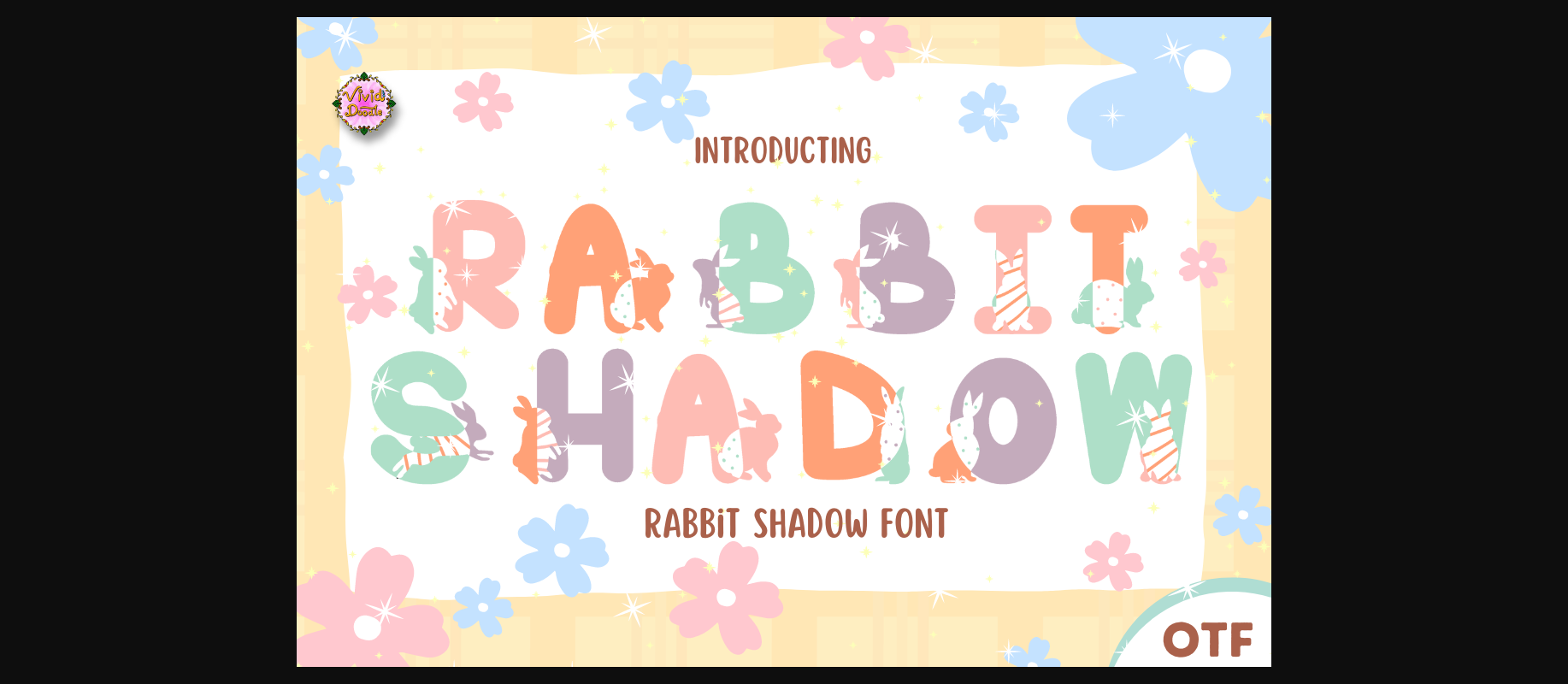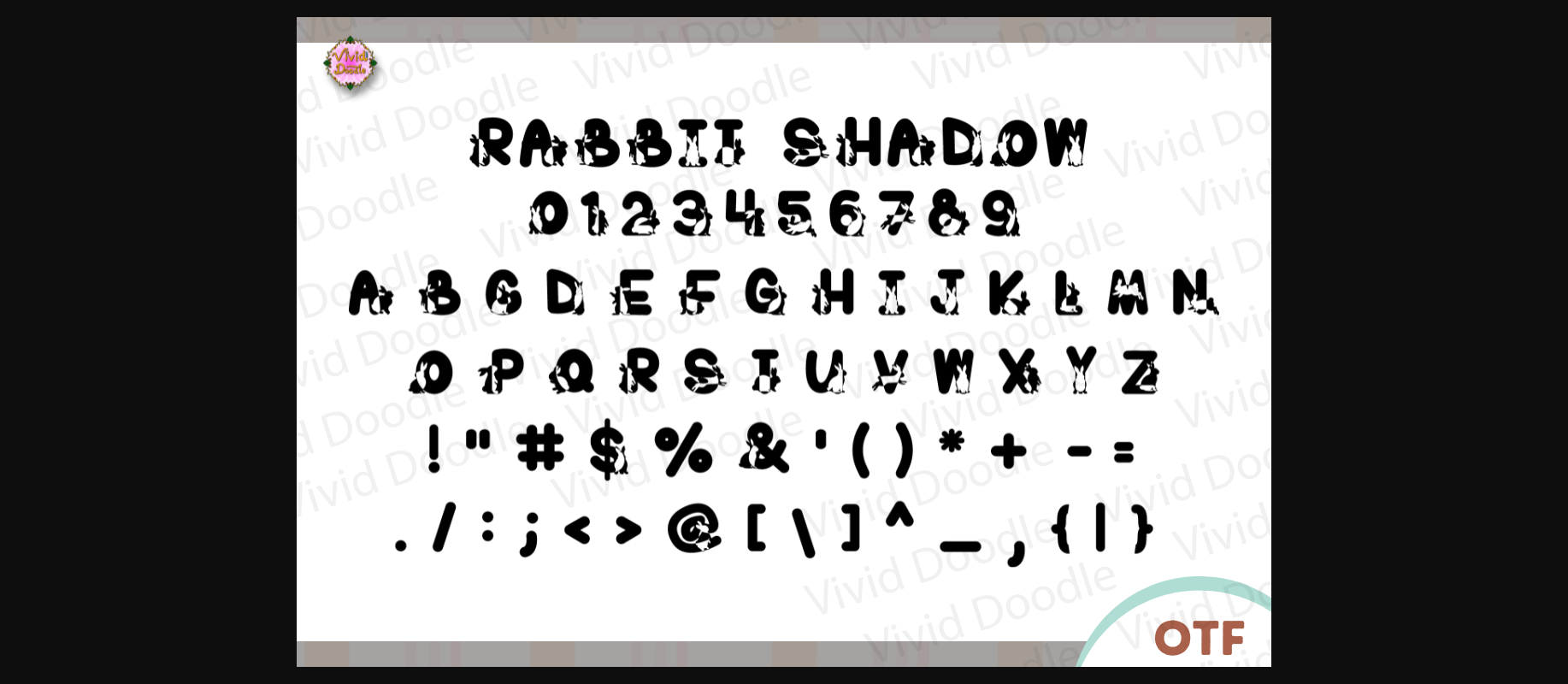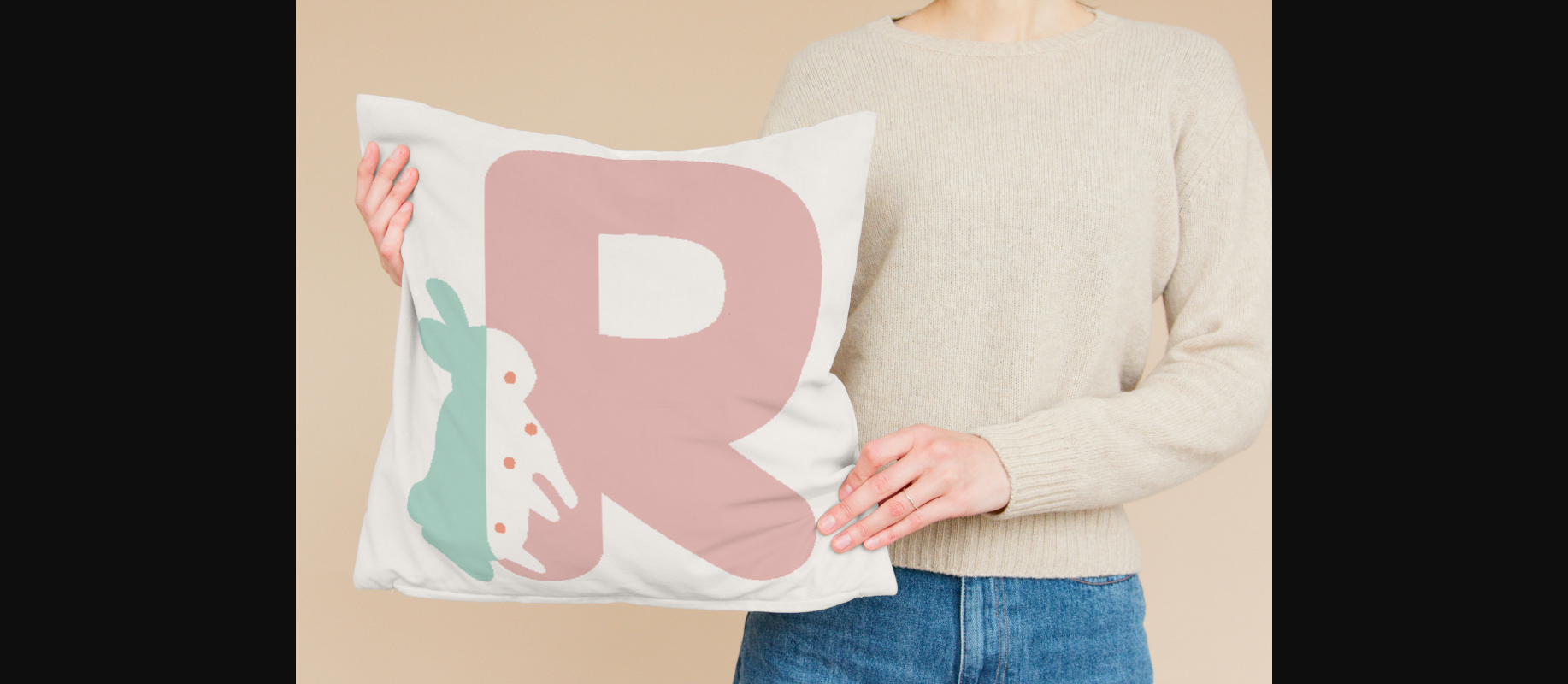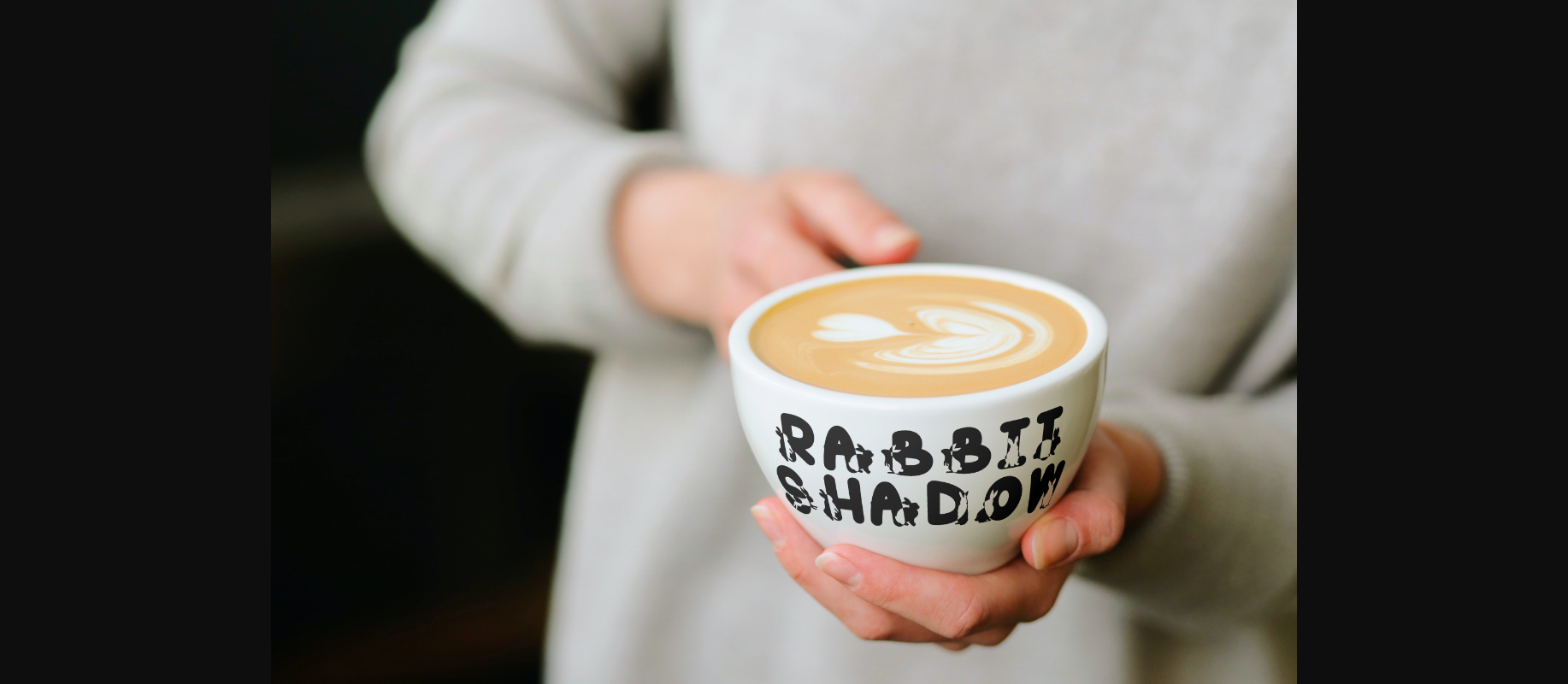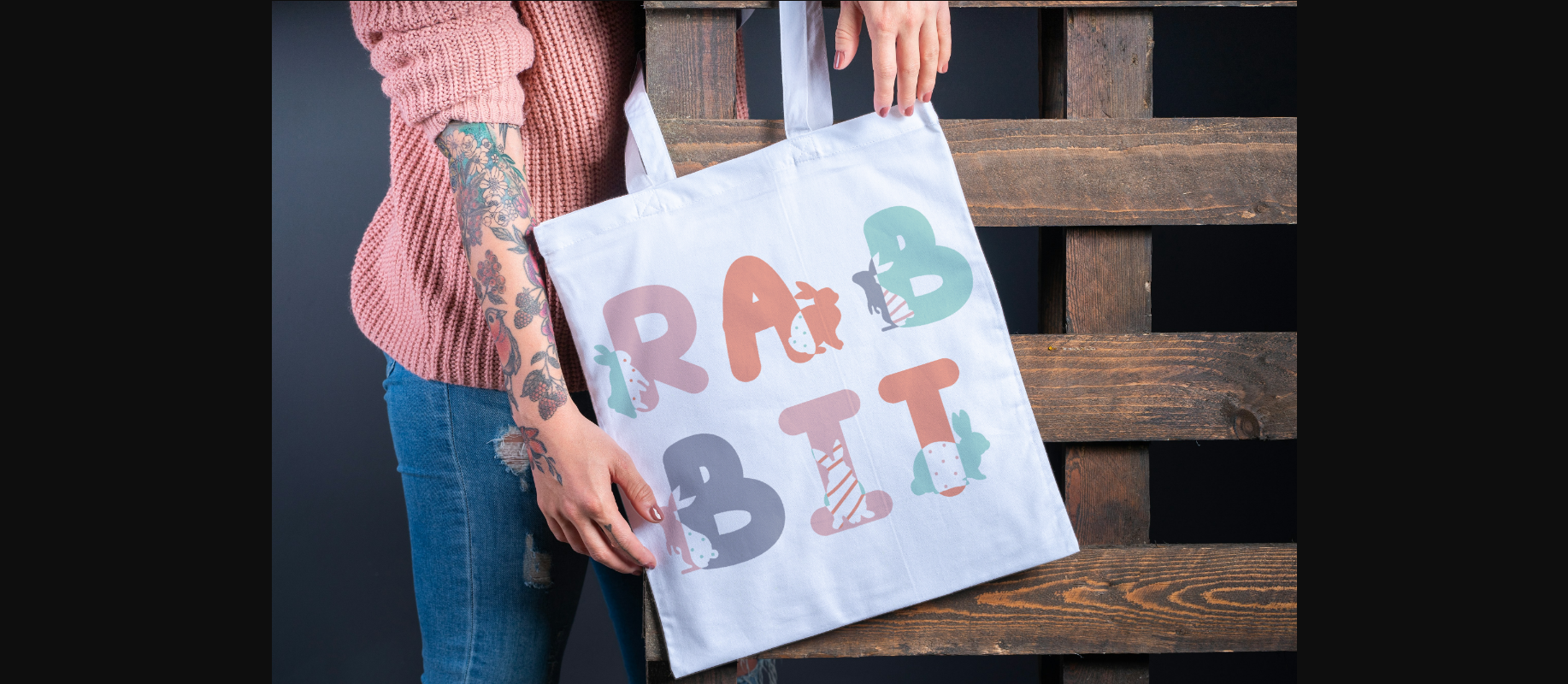
About Rabbit Shadow Font
Introducing Rabbit Shadow, an appealing creative font that effortlessly incorporates a playful yet elegant flair. This whimsical font style is perfect for all things related to Easter, fairy tales, and other child-friendly activities. Aptly named due to its cute rabbit-stylized lettering, Rabbit Shadow ensures an enchanting touch to your designs. It’s a versatile choice that adds a dash of magic, fun, and youthful charm to any design it’s incorporated with. Experience the superior personality of Rabbit Shadow font today; let it inspire your creativity and embellish your designs!